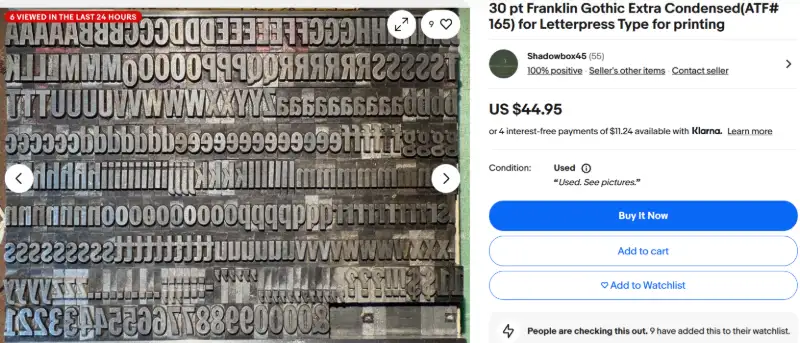
30 pt Franklin Gothic Extra Condensed(ATF#165) for Letterpress Type for printing*
Seller's description:
"Franklin Gothic might well. be called the patriarch of modern American gothics. Designed in 1902 by Morris F. Benton, it was one of the first important modernizations of traditional nineteenth-century faces by that designer, after he was assigned the task of unifying and improving the varied assortment of designs inherited by ATF from its twenty-three predecessor companies. Gothic Condensed and Extra Condensed were designed by Benton in 1906."*
NOTE: This face does not have uppercase N. Please see pictures above.